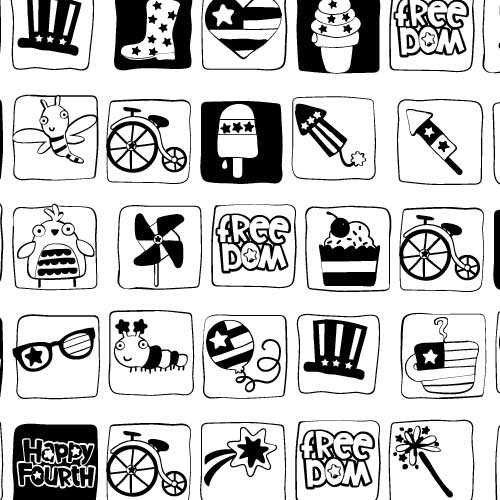
DB Iconic - Fourth - DB
This fun doodlebat font features 26 patriotic elements from our iconic style. Perfect for cards, crafts, gifts, planner stickers, scrap book pages, parties, decor and more!